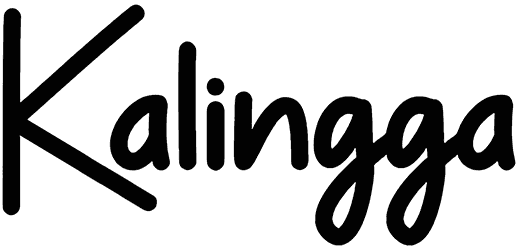
Kalingga Font
There are numerous cases in which you can use a modern handwritten font as an adornment for your words. The final result will reflect a casual and friendly vibe wherever this smooth handwriting will be added. You can set the Kalingga font on a beach billboard, a café stand, or many other designs and show your creative talent.
Kalingga simple fonts are font designs that are made for various vector designs font is a minimalist script type fonts. Kalingga font is a sophistication with its lettering.